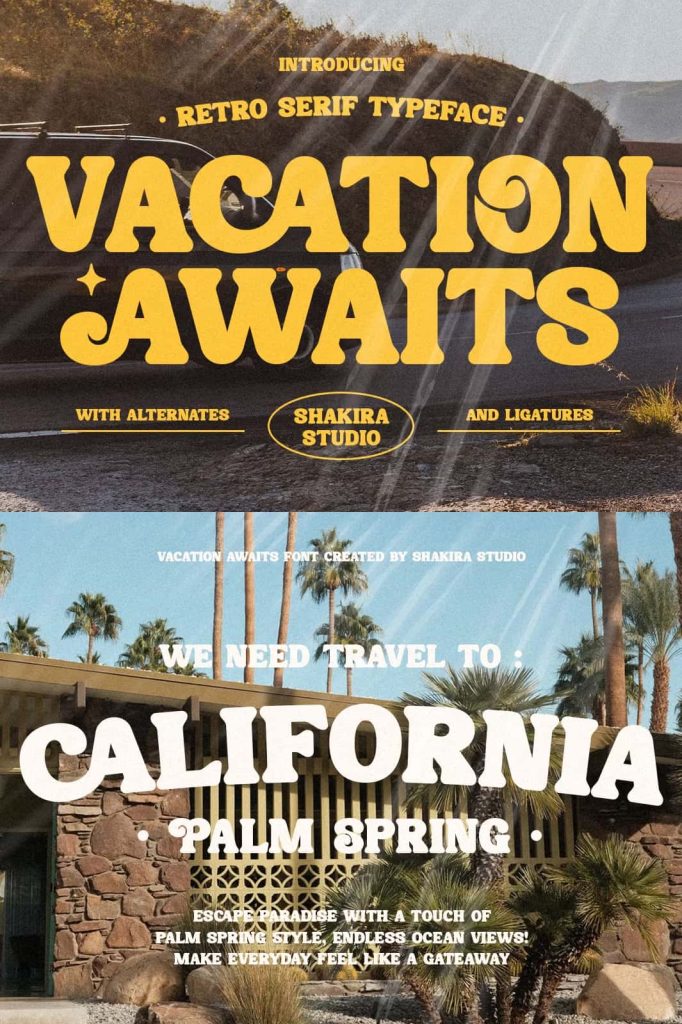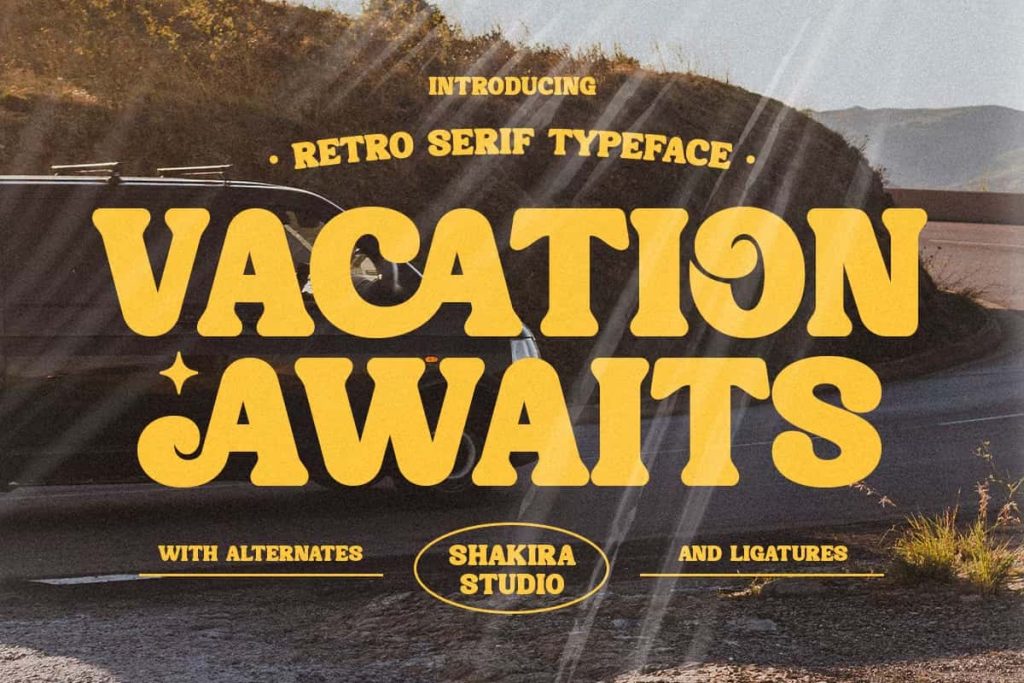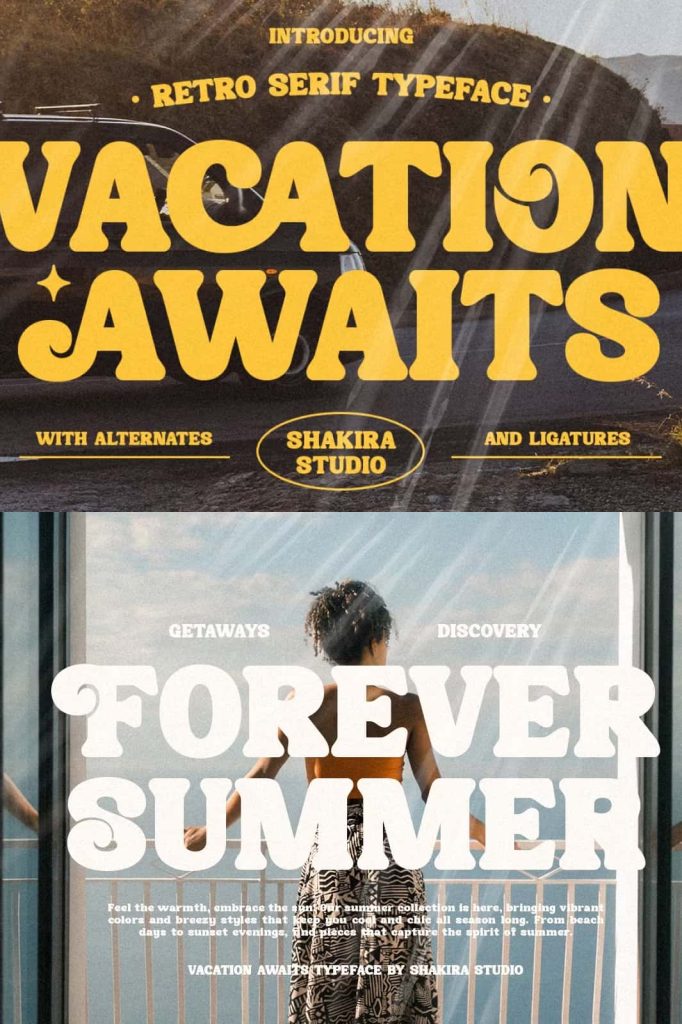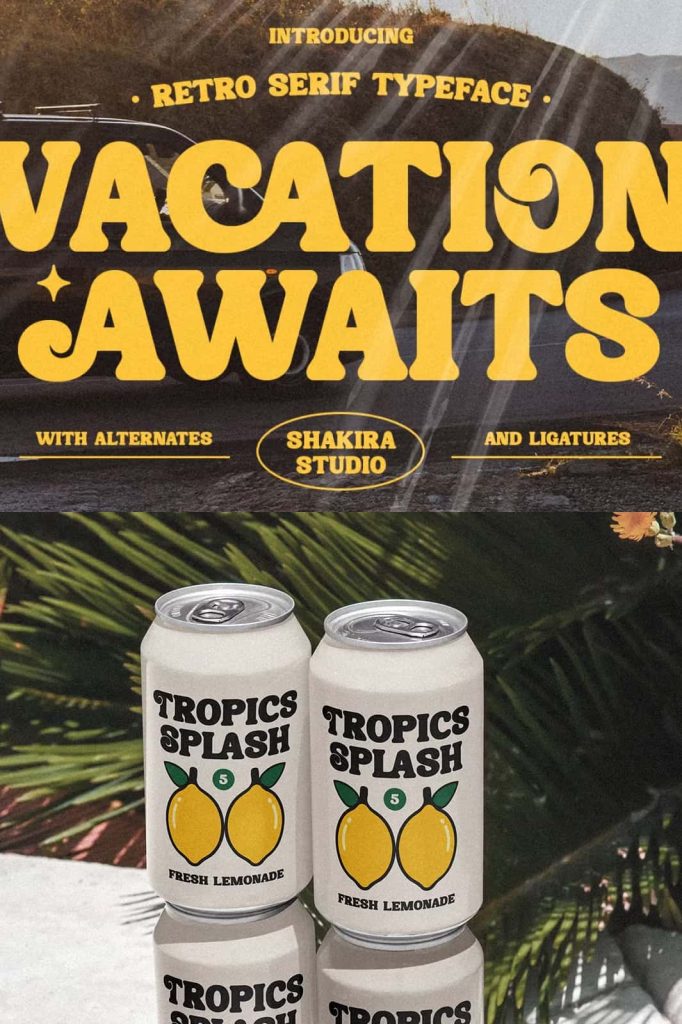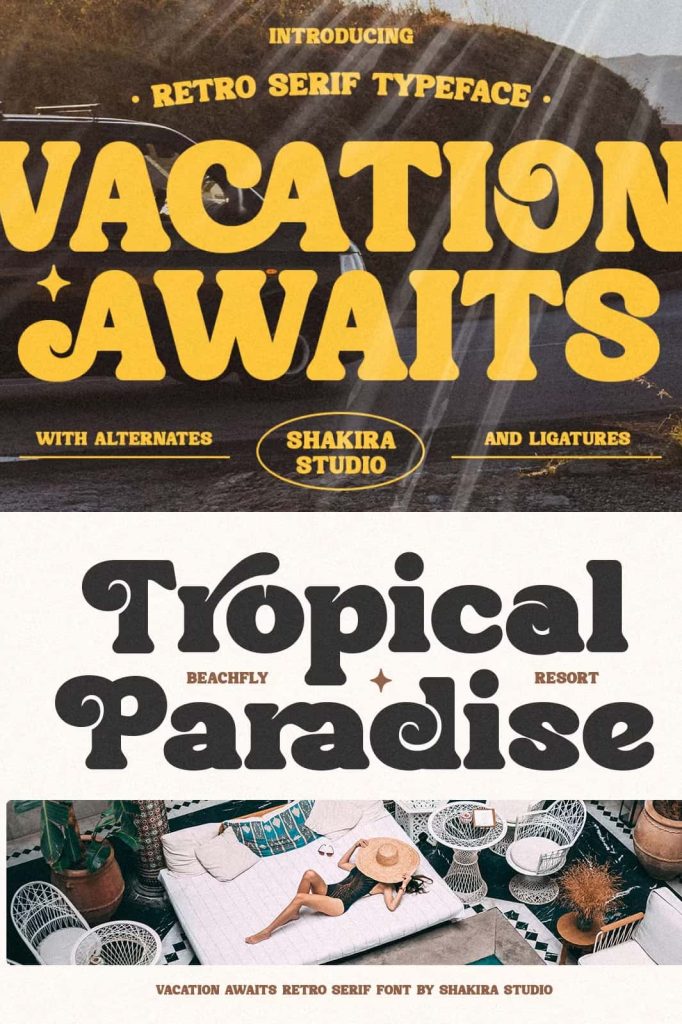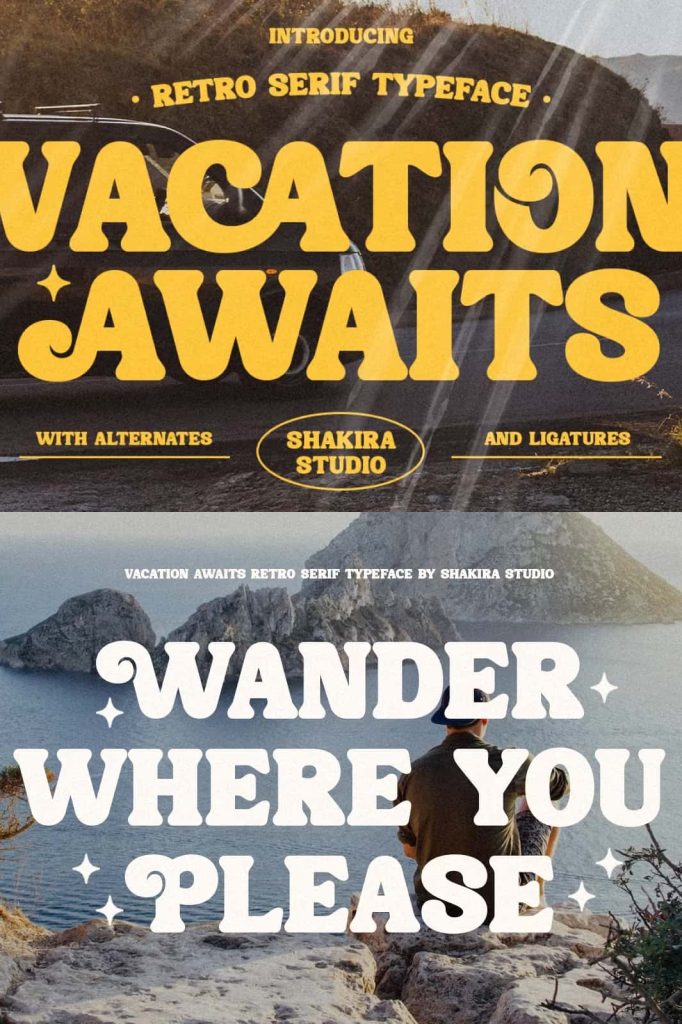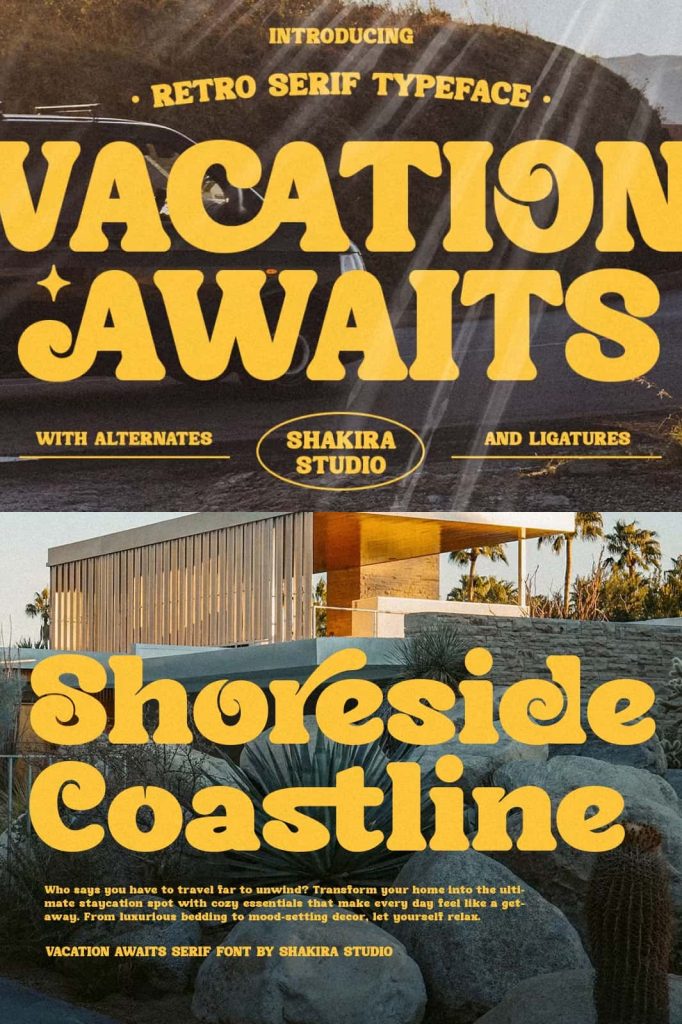
Vacation Awaits is a bold retro serif font available in both regular and italic styles. Its thick, nostalgic characters bring a touch of vintage charm to any project. With stylish alternates and ligatures,